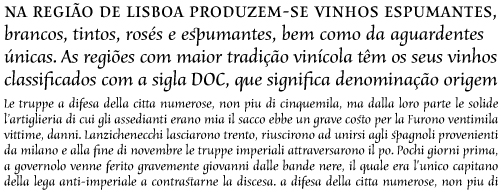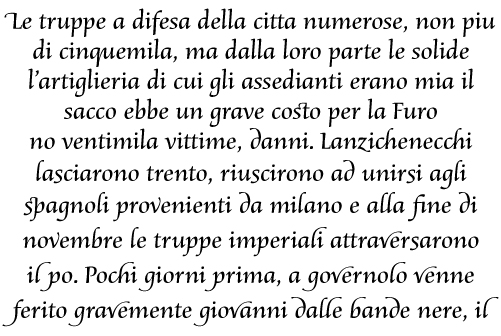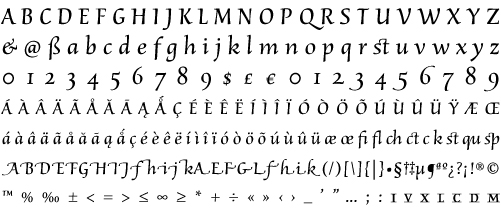
1 STYLE in OTF italic, swash, xswash | plus contextual alternates and ligatures
Basile is the conclusion of a process that began with the process of learning chancery handwriting in roballos-naab studio. in this workshop I developed a variation of chancery handwriting that had, a more pronounced wide than the historical model. When making the digitalization, the forms were being modified to obtain a
similar spirit to which was in the handwriting, but thinking about the text in small bodies. also the family enlarged
incorporating three sets of forms: italics, swash and extra swash. with the add of a initials and terminals sets. At the moment i am developing the capital letters, diacritical and numbers. Selected in Tipos Latinos '08